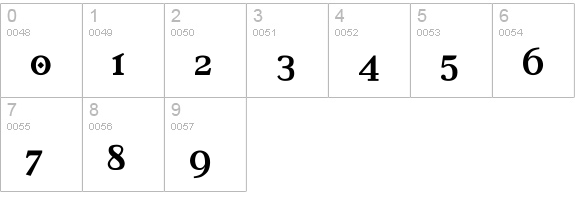
River Avenue Font Details
Introducing River Avenue font, a modern and elegant typeface that combines sophistication with a touch of playfulness. This versatile font is perfect for a wide range of design projects, from branding to packaging, invitations, and more. With its clean lines and stylish curves, River Avenue adds a touch of class to any design. What's even better is that River Avenue font is available for free download at FontsMarket.com. Yes, you read that right - you can easily access this beautiful font at no cost. So why wait? Download River Avenue font today and elevate your designs with its timeless charm and effortless style.